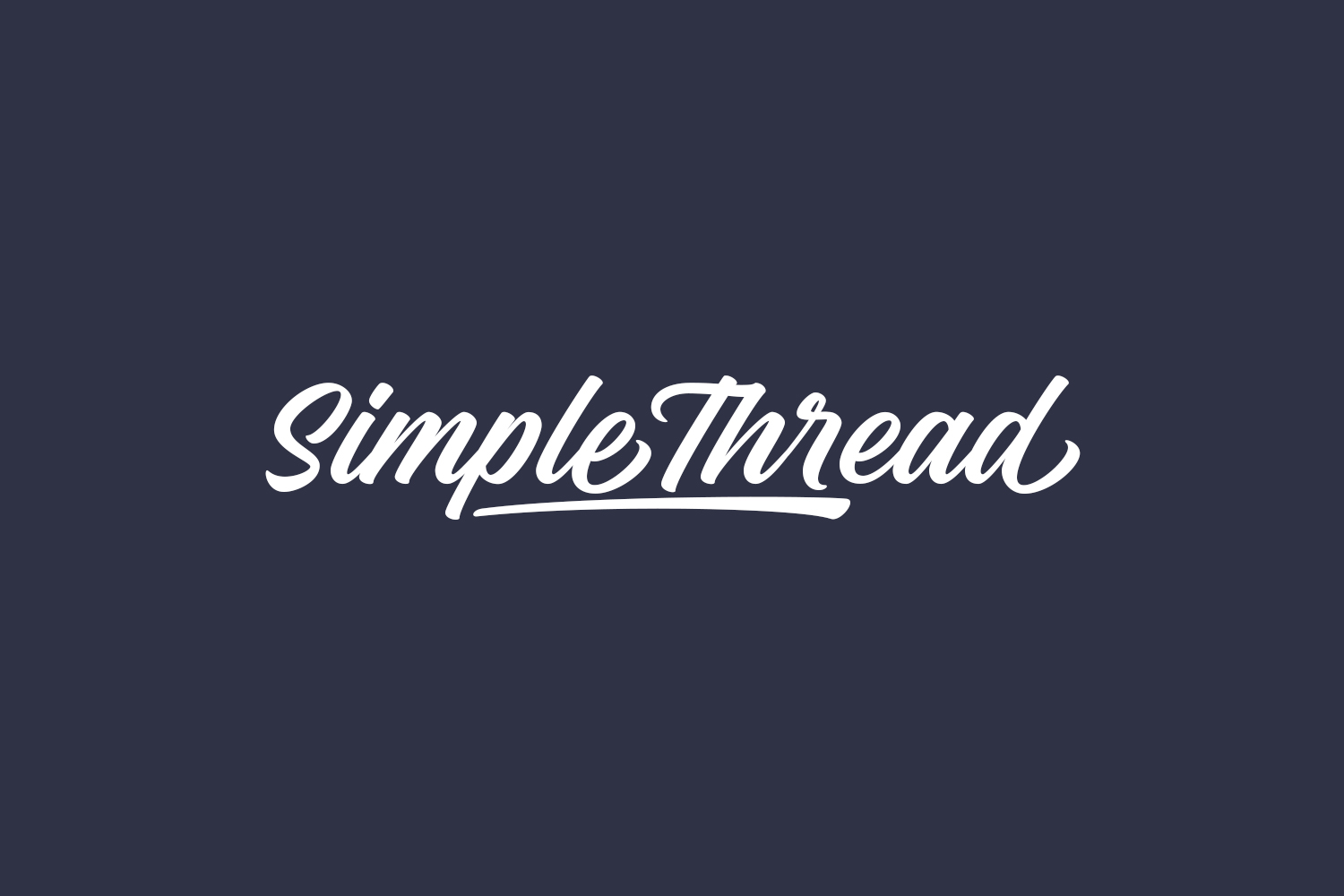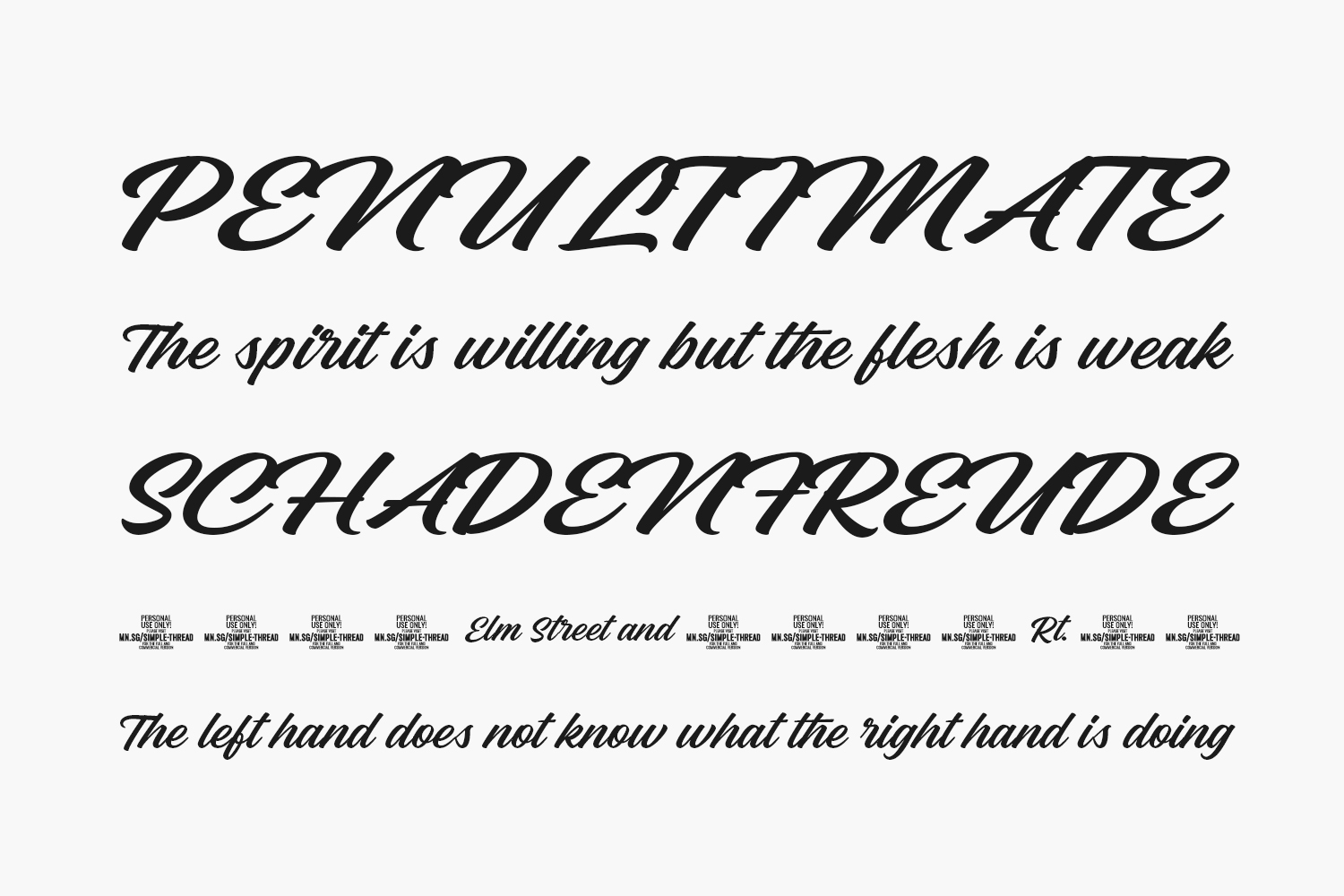
Simple Thread Free Font is a graceful and refined script calligraphy typeface that weaves a spell of elegance with every stroke. Like a delicate thread, each letter is meticulously crafted with a precise and masterful hand, producing a truly breathtaking effect. This font is the perfect choice for designers seeking to add a touch of sophistication to their projects, whether for wedding invitations, branding, or advertising. With Simple Thread, your text will exude a timeless and classic beauty that is sure to capture the hearts of all who see it.